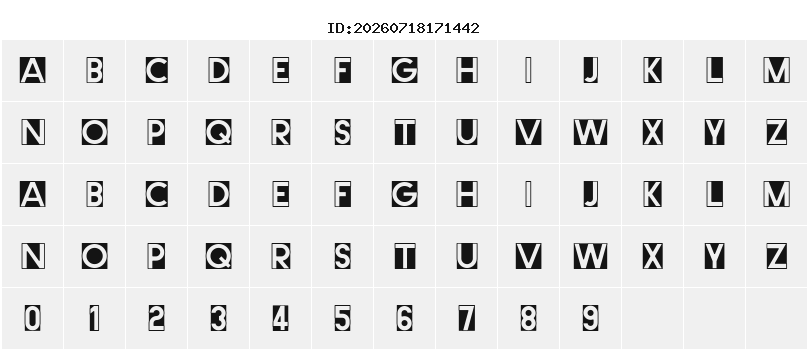
• Font Name: Cut Me Out 3
• Designer: Peter Wiegel
About Cut Me Out 3.ttf
Cut Me Out 3.ttf is a modern, elegant sans-serif font designed for ultimate readability and visual harmony. Perfect for branding, headlines, web design, and print materials.